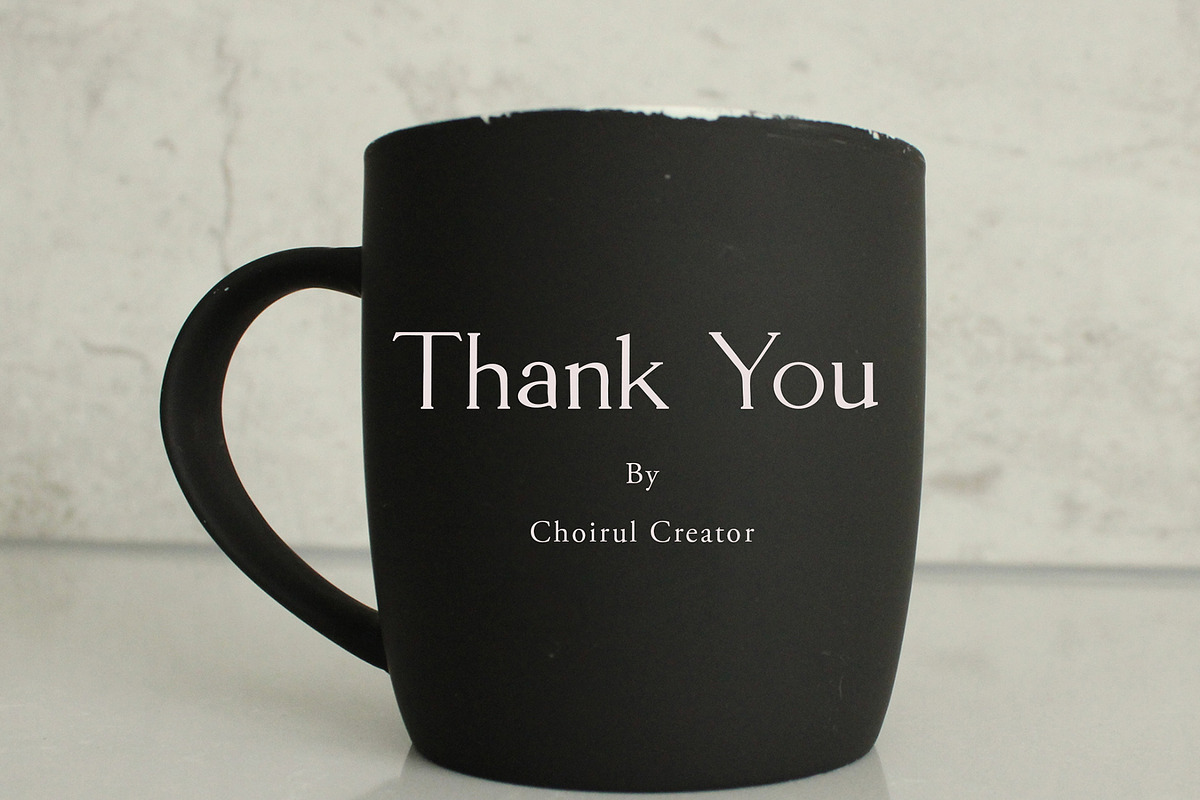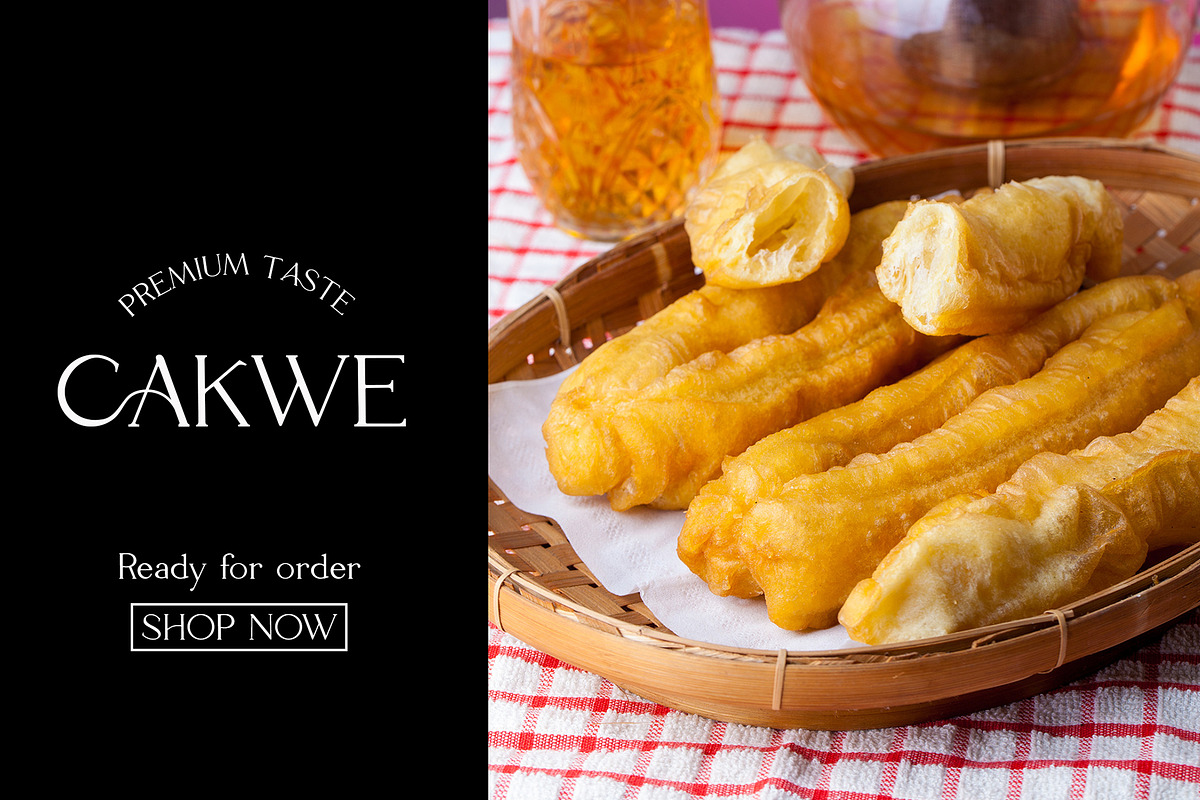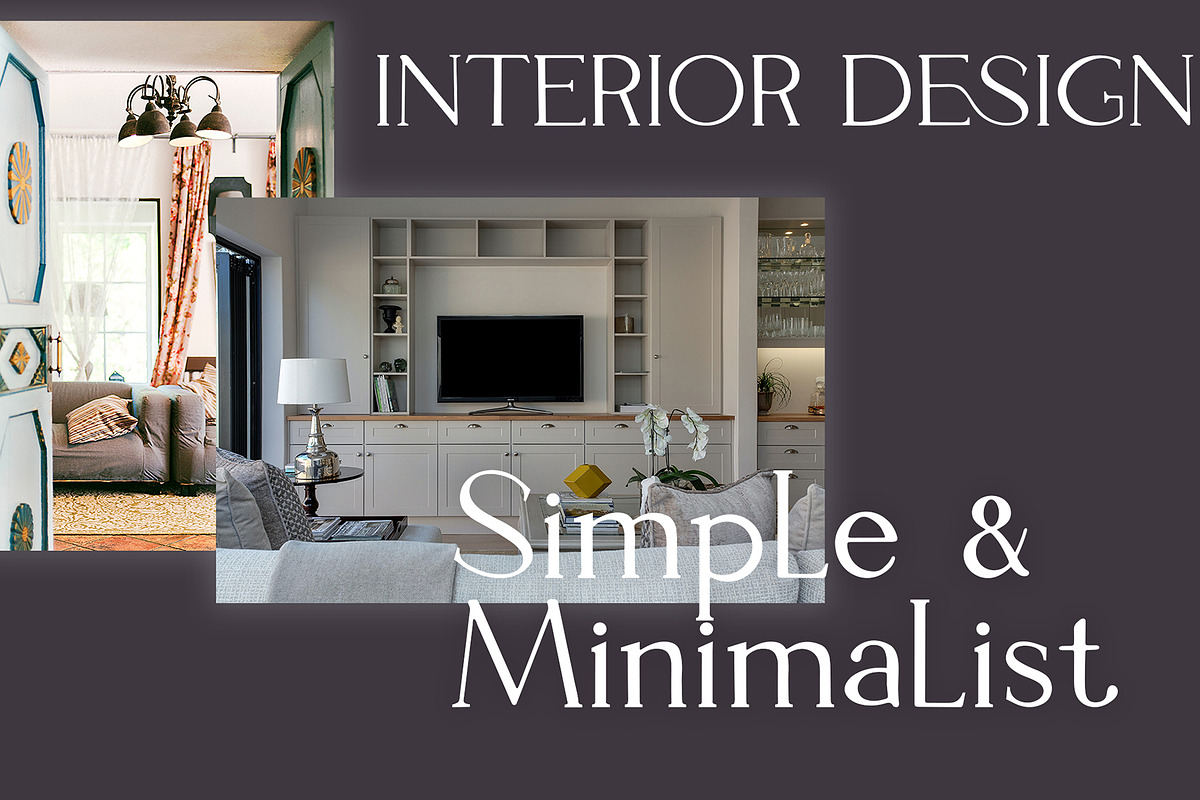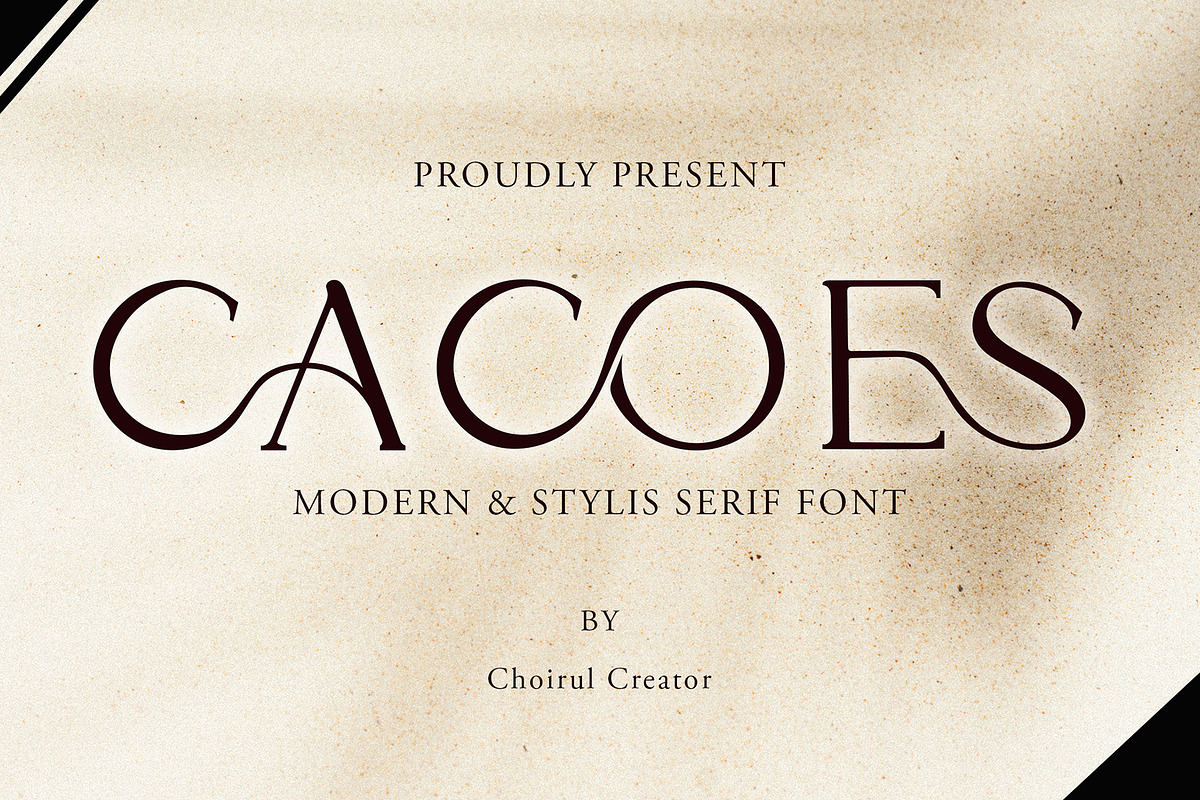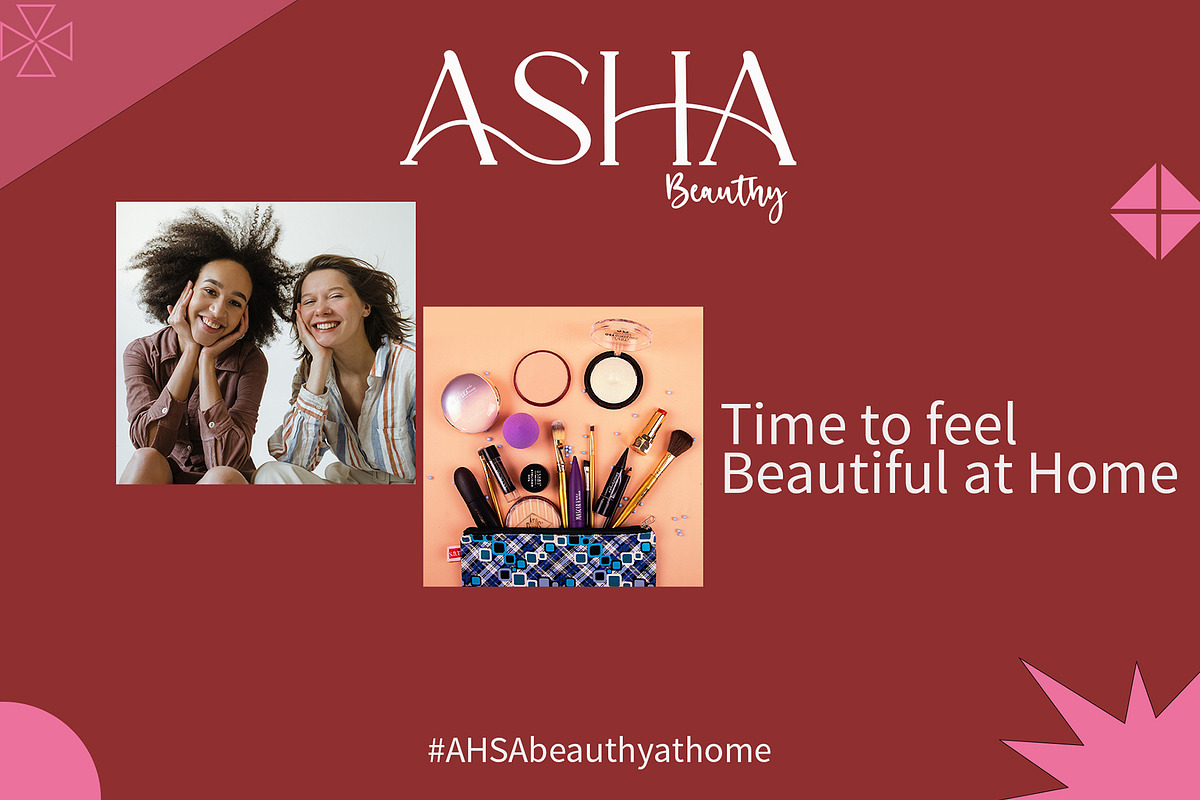
CACOES
Cacoes is a modern, luxurious and thin lettered serif font. Suitable to a wide variety of designs due to its neat and simple style, this font has the potential to become your favorite go-to font, no matter the occasion!